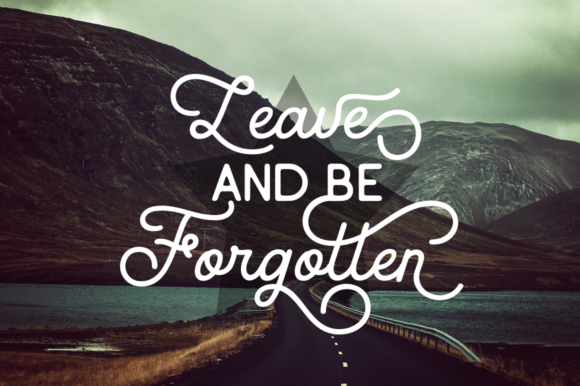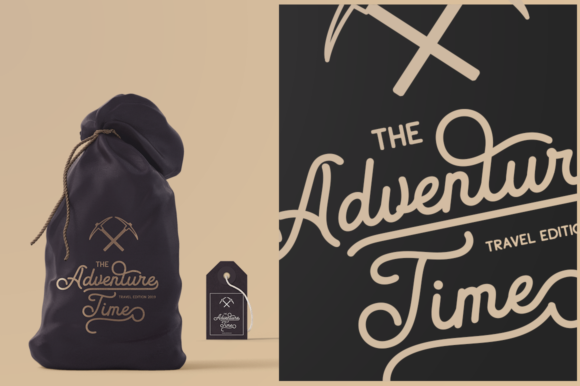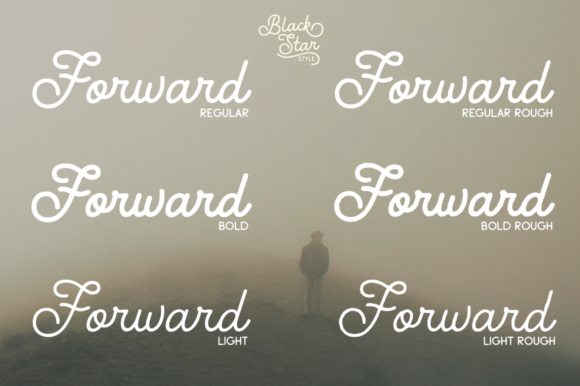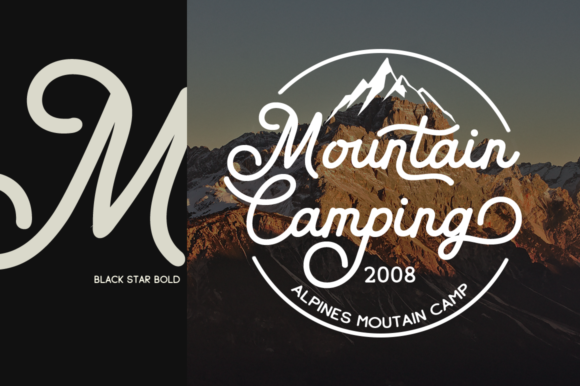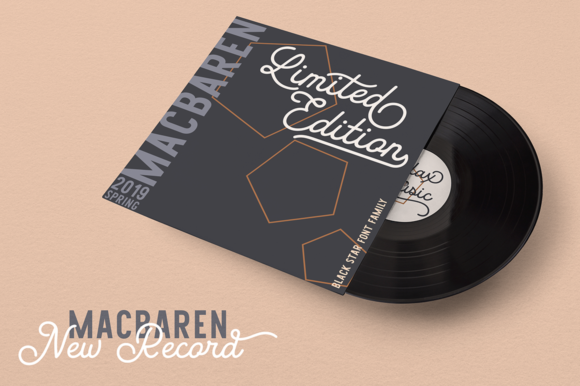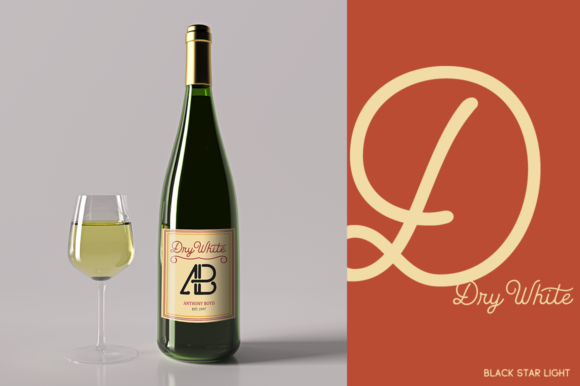
The Ultimate Font for Creative Projects: Black Star Family Font
I’ll never forget the time I was working on a wedding invitation project, and my client asked for a font that was elegant, yet modern, and would match their unique style. I scoured the internet, trying out font after font, but nothing seemed quite right. That was until I stumbled upon the Black Star Family Font. ✨ This amazing monoline font family has been a game-changer for my design projects, and I’m excited to share it with you.
- ✨ The Black Star Family Font includes 6 unique styles that can be combined perfectly, giving you the opportunity to create unique designs in an instant.
- ✅ The font is incredibly versatile and can be used for a wide range of projects, including wedding invitations, logos, frames, small businesses, book covers, and much more!
- 💫 The monoline design gives the font a clean and modern look that’s perfect for contemporary designs.
While the Black Star Family Font is amazing, there are a few things to keep in mind: ⚠️
- 🤔 Some users may find that the font can be a bit tricky to pair with other fonts, so it’s best to stick with a simple, neutral font for body text.
- ⚠️ The font may not be suitable for very long blocks of text, as it can be a bit too ornate for easy reading.
The Designer Inspiration Behind Black Star Family Font
The Black Star Family Font was designed with the modern creative in mind. The designer wanted to create a font that was both elegant and versatile, with a range of styles and combinations to suit any project. The result is a font that’s perfect for designers, crafters, and creative hobbyists who want to add a touch of sophistication to their work.
Q: What is the Black Star Family Font?
A: The Black Star Family Font is a monoline font family that includes 6 unique styles, perfect for creating modern and elegant designs.
Q: What can I use the Black Star Family Font for?
A: The Black Star Family Font is versatile and can be used for a wide range of projects, including wedding invitations, logos, frames, small businesses, book covers, and much more!